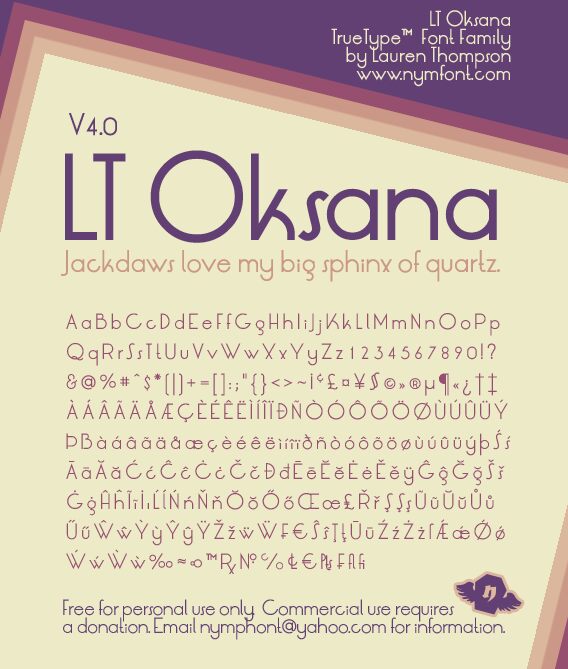
The LRT Oksana Italic font by Lauren Thompson exudes a retro-inspired charm with its sleek, sans-serif aesthetic. Boasting a light, airy weight, this unique typeface captivates with its graceful curves and subtle, vintage-inspired nuances. The harmonious balance of modern simplicity and nostalgic flair creates a visually striking and memorable impression.
This versatile font lends itself seamlessly to a wide range of design projects, from vintage-inspired branding and packaging to modern editorial layouts and digital interfaces. The clean, legible letterforms and delicate character give the LRT Oksana Italic a timeless appeal, making it a versatile choice for designers seeking to evoke a sense of classic elegance with a contemporary twist.
Original geometric design by Lauren Thompson, first created in 2008. The "deco" midlines and unconventional dotted letter positions as well as the almost vertical slant of the 's' give this font what has been described as a "retro" theme and add to the uniqueness of the typeface.